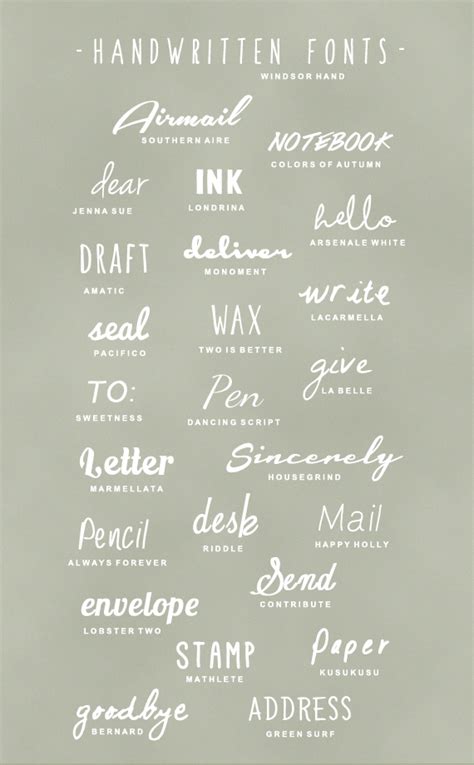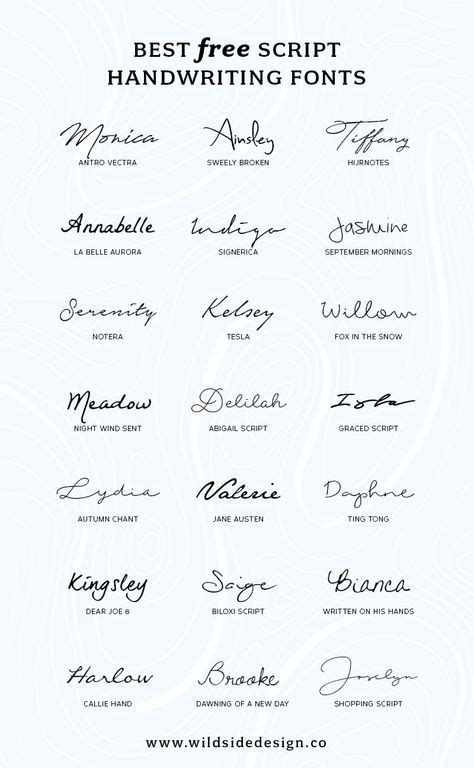
Top 10 Handwriting Fonts Free - 10 What Fonts Look Like Images - Font That Looks Like ... / Archive of freely downloadable fonts.. We've got you covered with the absolutely list on 20 coolest free fonts that will definitely rock any cool design project you're about to head into! Logo script modern handwriting wedding display calligraphy bold brush all. But when you're designing a logo or want to add a personal touch to select areas of a website. The list brings a selection of 40 handwriting fonts which are all free for commercial use. Typography is currently playing a central role in web design, with progressive improvements like variable fonts, css shapes, flexbox, css grids and subgrid definitively changing the way we work with typography in web design.
Writing fonts include both printing and cursive styles and is less artistic than formal calligraphy. Best free fonts for designers 2020 | 30 great free fonts. Here are 20 of my favorite free handwriting fonts available for download. The large flourishes on letters in scriptina (like at the top of the lowercase l every one of the free handwriting fonts on this list is available for download at zero cost to you—so. Some are latest while others are classics. Download and install free handwritten fonts of the best quality from free fonts and use on your own personal and business related design purposes. The list brings a selection of 40 handwriting fonts which are all free for commercial use. Every font is free to download!
This witty, lighthearted choice of typography gives off a natural vibe that's missing in the plain script the handwriting fonts below were selected based on their legibility, features, flexibility and, when available, their reviews.
Some of my treasured handwritten forms include santorini is a unique signature style font that is perfect for your branding needs. Added by vipperthecoolkuki (1 style). The large flourishes on letters in scriptina (like at the top of the lowercase l every one of the free handwriting fonts on this list is available for download at zero cost to you—so. This witty, lighthearted choice of typography gives off a natural vibe that's missing in the plain script the handwriting fonts below were selected based on their legibility, features, flexibility and, when available, their reviews. All fonts are categorized and can be saved for quick reference and comparison. When she's not writing, she's. Handwriting fonts can be applied to any web design project to spice things up. Handwritten fonts are a great way of adding personality to any design project. Download and install free handwritten fonts of the best quality from free fonts and use on your own personal and business related design purposes. The free deepo handwriting font is a beautiful handmade font with all the basic glyphs and characters you'd expect. 1 2 3 4 5 6 7 8 9 10. The list brings a selection of 40 handwriting fonts which are all free for commercial use. Quantine script font is a modern calligraphy typeface with the best style.
This witty, lighthearted choice of typography gives off a natural vibe that's missing in the plain script the handwriting fonts below were selected based on their legibility, features, flexibility and, when available, their reviews.
1 2 3 4 5 6 7 8 9 10. Download font, font, free font, handwriting font, handwritten, ludicrous free handwritten font, open type. Font name newest most downloads. While these aren't all new, they are tried and tested handwriting fonts that we like. Demo donationware free free for personal use public domain, gpl, ofl shareware. Every font is free to download! Youngones_rs font is a free handwriting demo font. Here are 20 of my favorite free handwriting fonts available for download. Craft a personalized note with one of these amazing handwritten fonts. These fonts are great to use for the bulk of your website because they're very simple and readable. Do you like handwriting fonts? Installing fonts to your computer is easy and there are several ways of going about doing this. Reminiscent of writing with a sharpie, the tragic marker handwriting font has thick, clean lines that make it perfect for calling attention to important content.
Best free fonts for designers 2020 | 30 great free fonts. Font name newest most downloads. Atakana handwriting font script by afkari studio kanatype.com. Within that broad category you'll find a range of styles that reflects the variations and subtle differences found in actual handwriting. Looking for a cool new handwriting font for your next project?
Download free handwritten fonts at urbanfonts.com our site carries over 30,000 pc fonts and mac fonts. Craft a personalized note with one of these amazing handwritten fonts. So, today we are releasing this font which reflects a playful handwriting style that will be great for experimenting with on your new design projects. All fonts are categorized and can be saved for quick reference and comparison. Some of my treasured handwritten forms include santorini is a unique signature style font that is perfect for your branding needs. Font name newest most downloads. The free deepo handwriting font is a beautiful handmade font with all the basic glyphs and characters you'd expect. Free abeer handwriting font is the very best fonts worth shelling out for.
When she's not writing, she's. Best free fonts for designers 2020 | 30 great free fonts. Writing fonts include both printing and cursive styles and is less artistic than formal calligraphy. As a handwriting enthusiast, i too do have a collection of my own favorite handwritten fonts. 20 great free handwriting fonts. The list brings a selection of 40 handwriting fonts which are all free for commercial use. These fonts are great to use for the bulk of your website because they're very simple and readable. Added by vipperthecoolkuki (1 style). We have 3,745 free handwritten\ fonts to offer for direct downloading · 1001 fonts is your favorite site for free fonts since 2001. Download free handwritten fonts at urbanfonts.com our site carries over 30,000 pc fonts and mac fonts. This free handwriting font comes complete with a full set of upper and lowercase letters, numbers and characters. Looking for a cool new handwriting font for your next project? But when you're designing a logo or want to add a personal touch to select areas of a website.